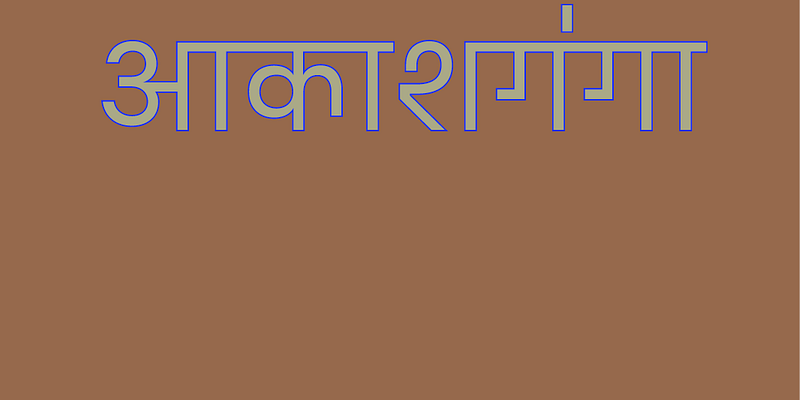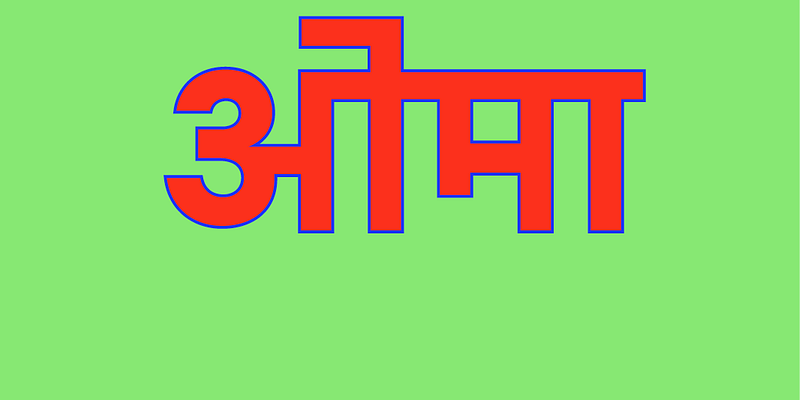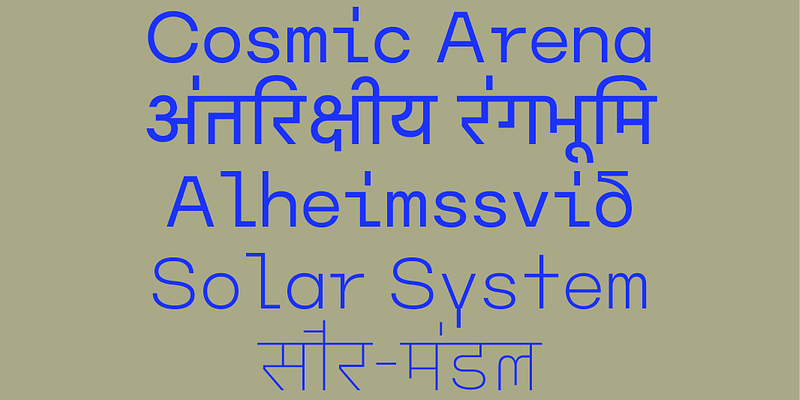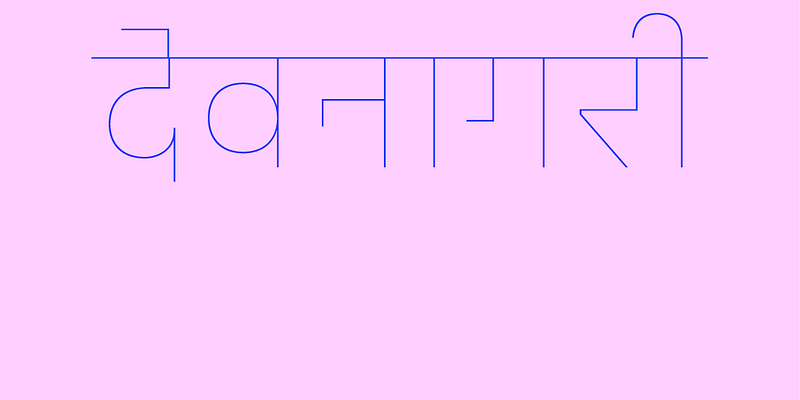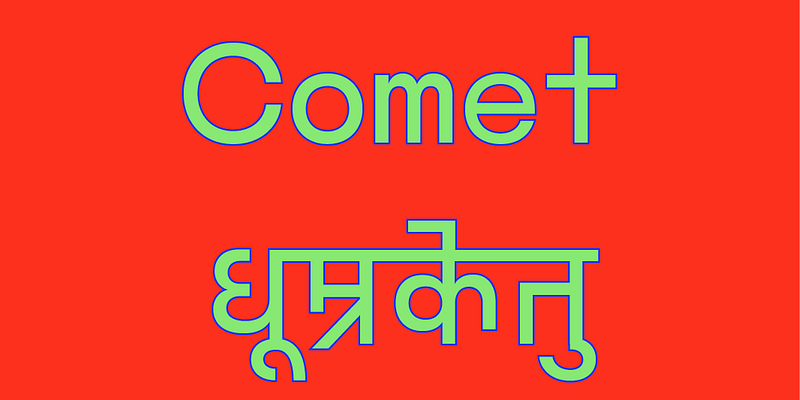
Ouma is an award-winning typeface named after the first interstellar object detected passing through our solar system, Oumuamua. Incorporating both conventional and inventive letterforms with a hint of monospace melody, Ouma supports Latin and Devanagari scripts.